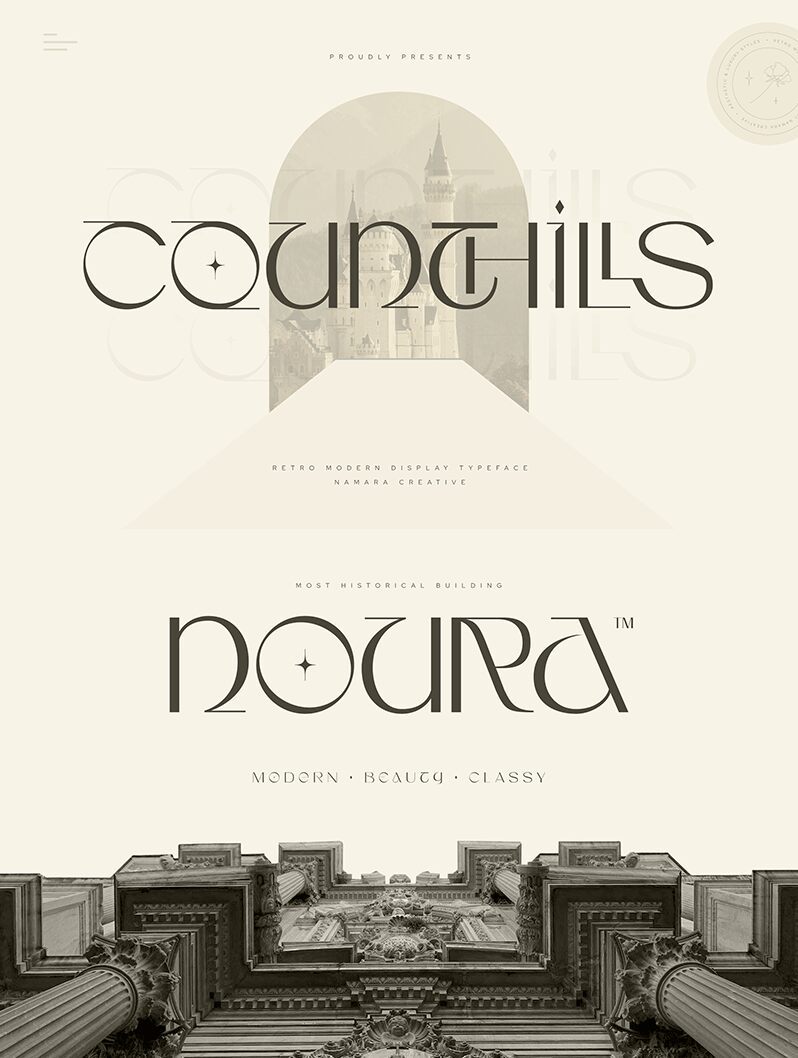
Counthills
Counthills font by Namara Creative is a free modern display font. Built around razor-fine strokes and sculpted curves, it carries a chic, jewel-like precision—the circular forms feel polished, and the delicate cuts add a subtle sparkle without shouting. The rhythm is airy but intentional, giving headlines a glassy, high-fashion presence that reads crisp at large sizes.
Using Counthills, titles and wordmarks snap into focus for beauty branding, luxury logos, fashion editorials, product packaging, event posters, and sleek portfolio covers. This free font shines when tracked slightly and set big; pair it with a calm grotesk or minimalist serif for body copy to let the refined contrast do the talking.